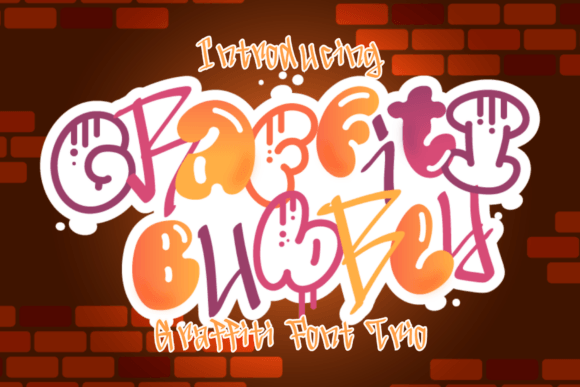
Enter Graffiti Bubbly Font, a trio of playful, authentic fonts that are perfect for adding a touch of whimsy to any design. Whether you’re working on a blog post, logo, or invitation, Graffiti Bubbly Font is the perfect choice to bring your project to life. Its unique, bubbly style makes it a valuable addition to any designer’s toolkit, allowing them to add a personal touch to their work.
With Graffiti Bubbly Font, the possibilities are endless. From branding and advertising to photo albums and decorations, this font trio is sure to bring a smile to your face and a touch of creativity to your designs.
Graffiti Bubbly Font Key Features
- Font Family: Graffiti Bubbly is a playful, handwritten font designed to resemble graffiti-style lettering.
- Character Count: The font family includes over 200 characters, including uppercase and lowercase letters, numbers, and punctuation marks.
- Unique Characteristics: Features a bubbly, hand-drawn style with irregular letterforms, perfect for adding a touch of whimsy and personality to your designs.
Graffiti Bubbly Font Review
I recently had the chance to work with the Graffiti Bubbly Font, and I’m excited to share my thoughts on it.
- The font’s playful, bubbly design is perfect for creating eye-catching headings and titles.
- The font’s versatility makes it suitable for a wide range of projects, from children’s books to streetwear brands.
- The font’s bold lines and rounded edges give it a fun, energetic feel that’s sure to grab attention.
- The font may not be the best choice for formal or professional projects, as its playful nature may come across as unprofessional.
- The font’s bold lines and rounded edges can make it difficult to read at smaller font sizes.
- The font’s limited character set may not include all the special characters and symbols you need for your project.
Overall, I think the Graffiti Bubbly Font is a great addition to any designer’s toolkit. While it may have some limitations, its unique design and versatility make it a great choice for the right project. With a little creativity, this font can add a fun and playful touch to your designs.
Use Graffiti Bubbly Font for:
1. Creating eye-catching headings and titles.
2. Adding a playful touch to social media graphics.
3. Designing party invitations and promotional materials.
Alternative Fonts to Graffiti Bubbly Font